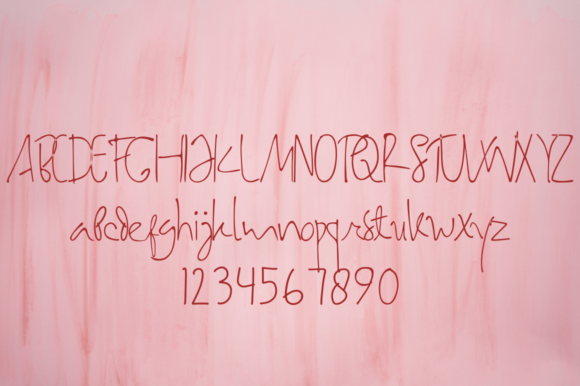
About Samarasa Font
Introducing “The Samarasa,” a feminine handwritten font designed to convey a clean and elegant impression to your projects. This font is more than just a typeface; it’s a design asset carefully crafted to bring a touch of sophistication, making it ideal for beauty products, business cards, health products, and more.
“The Samarasa” presents a delicate and refined script style that adds a feminine and elegant touch to your designs. Whether you’re working on branding for beauty or health products or creating business cards that exude sophistication, this font provides a clean and polished aesthetic.
Its versatility allows “The Samarasa” to adapt seamlessly to various design contexts. In beauty product branding, the font establishes a clean and elegant visual identity that resonates with a feminine audience. For business cards, it conveys a professional yet graceful impression, leaving a lasting impact.
Health products and other related projects benefit from the font’s clean and elegant look, creating a visually appealing and trustworthy presentation. Whether you’re working on labels, packaging, or promotional materials, “The Samarasa” adds a touch of sophistication to your design.
In summary, “The Samarasa” is more than just a font; it’s a design companion that brings a feminine and elegant handwritten style to your creative projects. Embrace its clean and polished impression for beauty products, business cards, health products, and more, and let “The Samarasa” enhance your designs with a touch of refined sophistication.